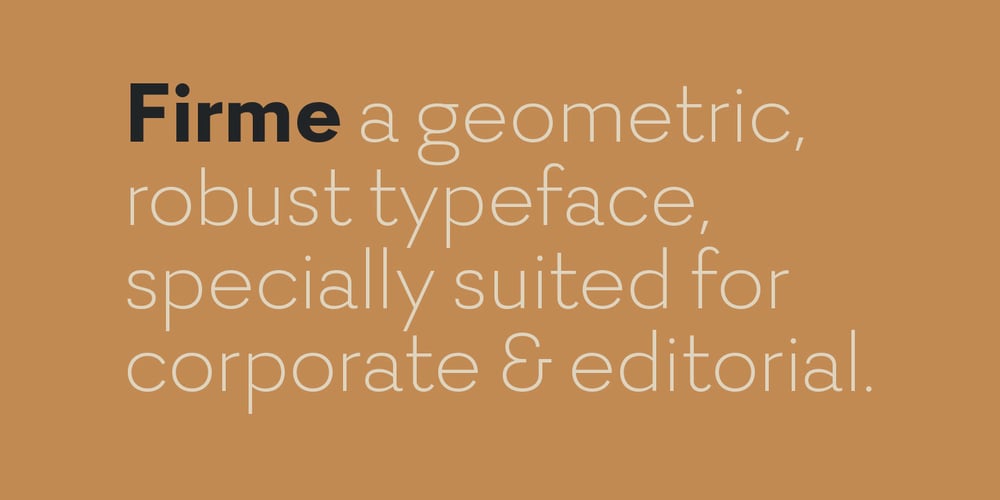
Firme
Firme font
Firme Font Family was designed by Dino dos Santos and published by Monotype. Firme contains 14 styles and family package options. Firme is a very personal take on the geometric typefaces, and it’s specially suited for corporate and editorial projects, with several stylistic alternates and discretionary ligatures, for improved typographic flexibility.